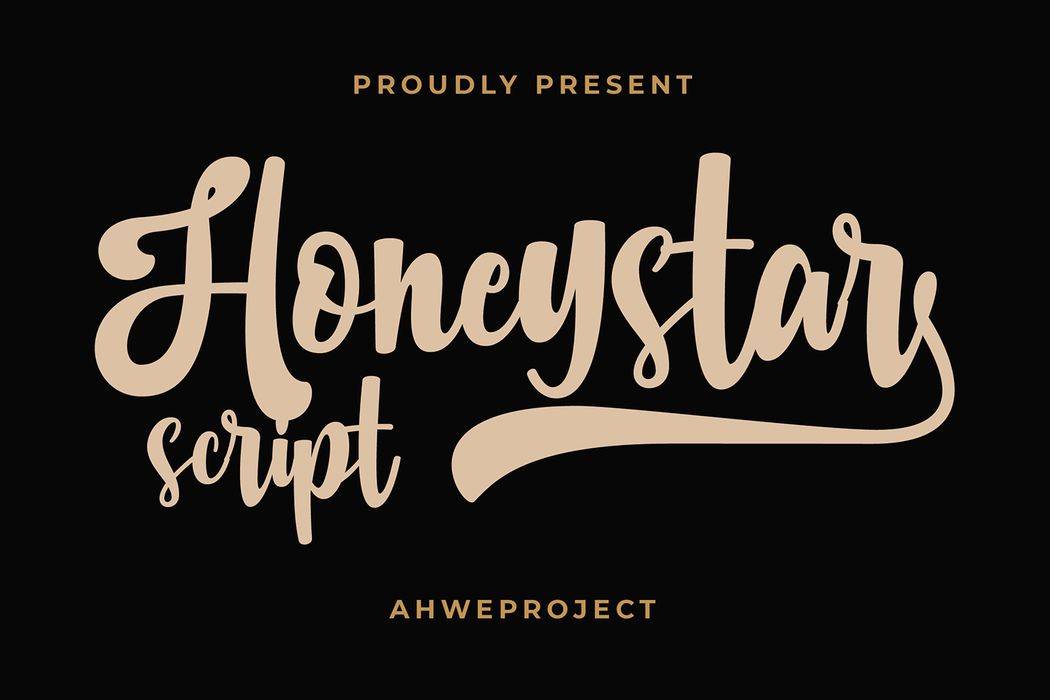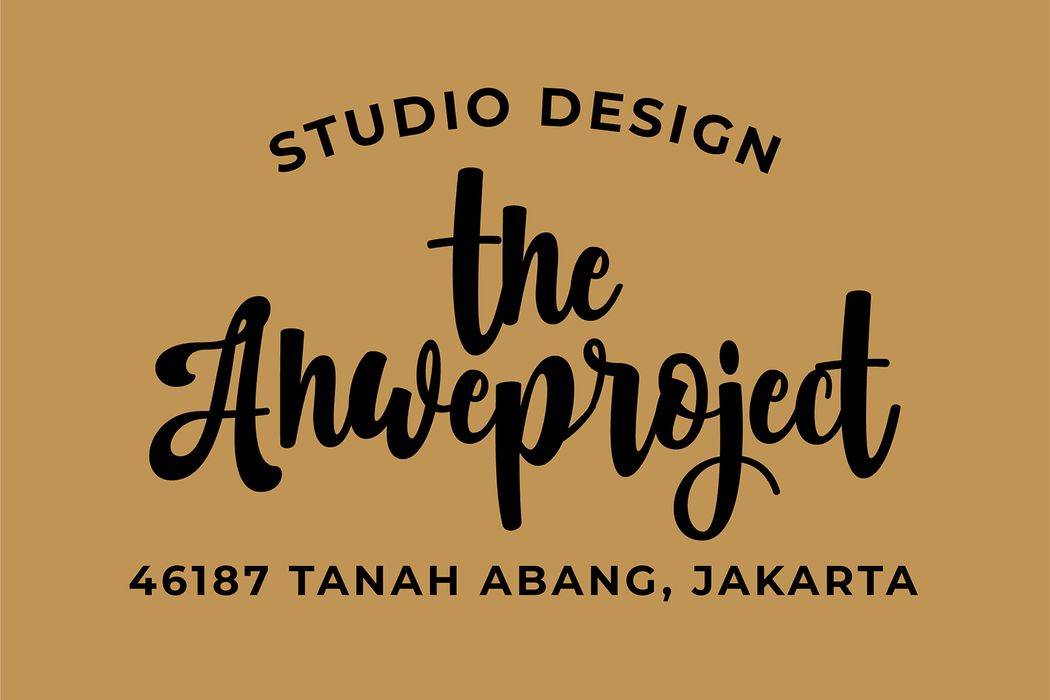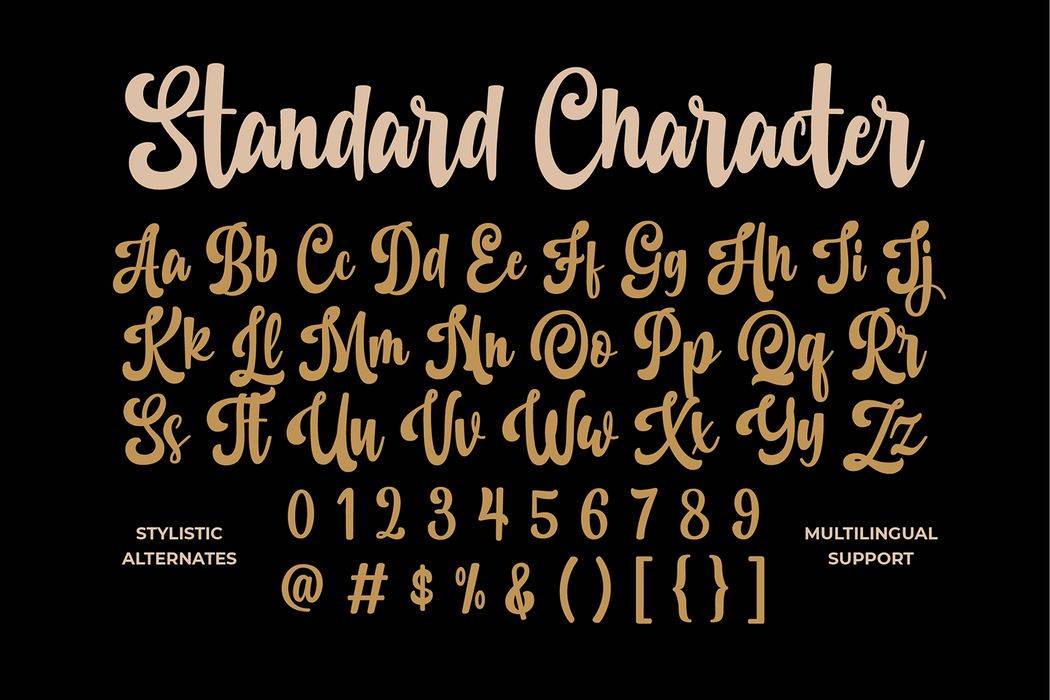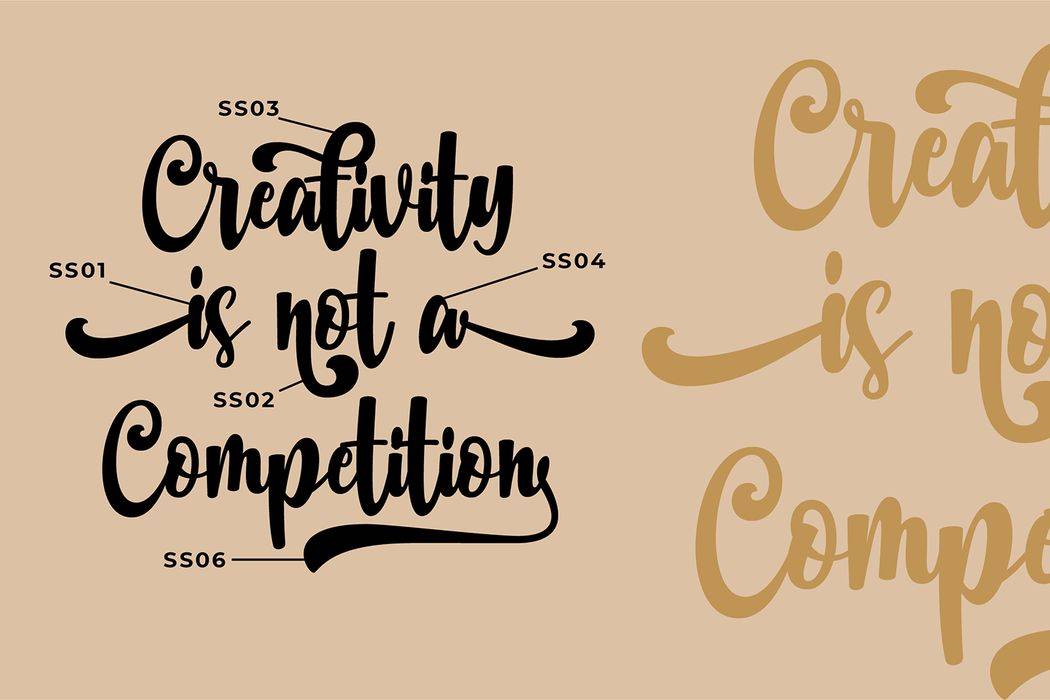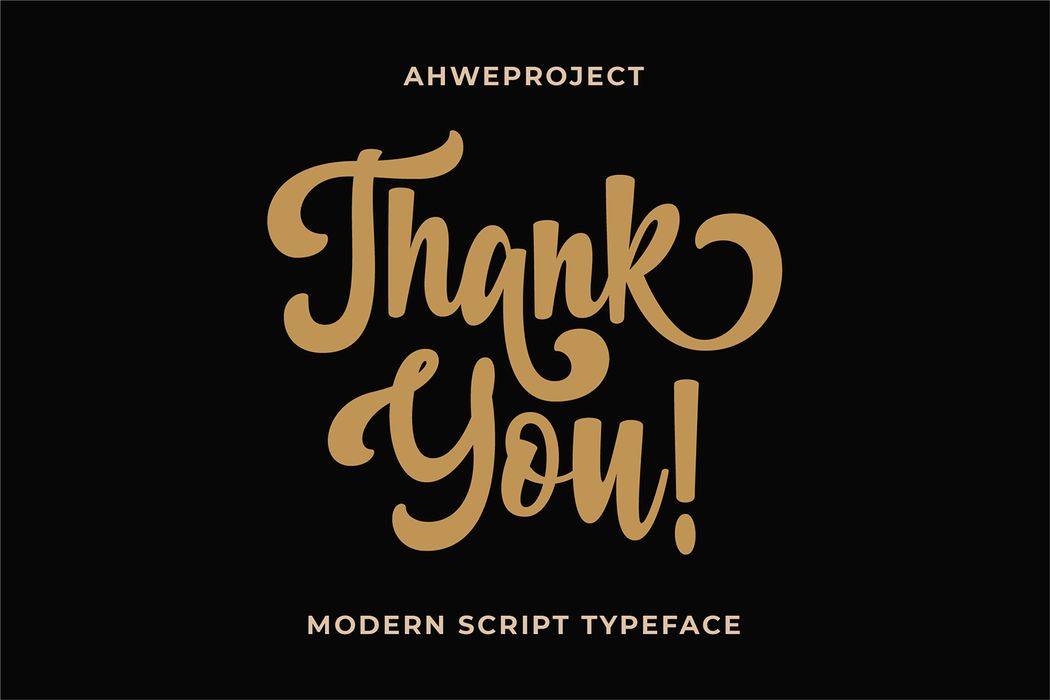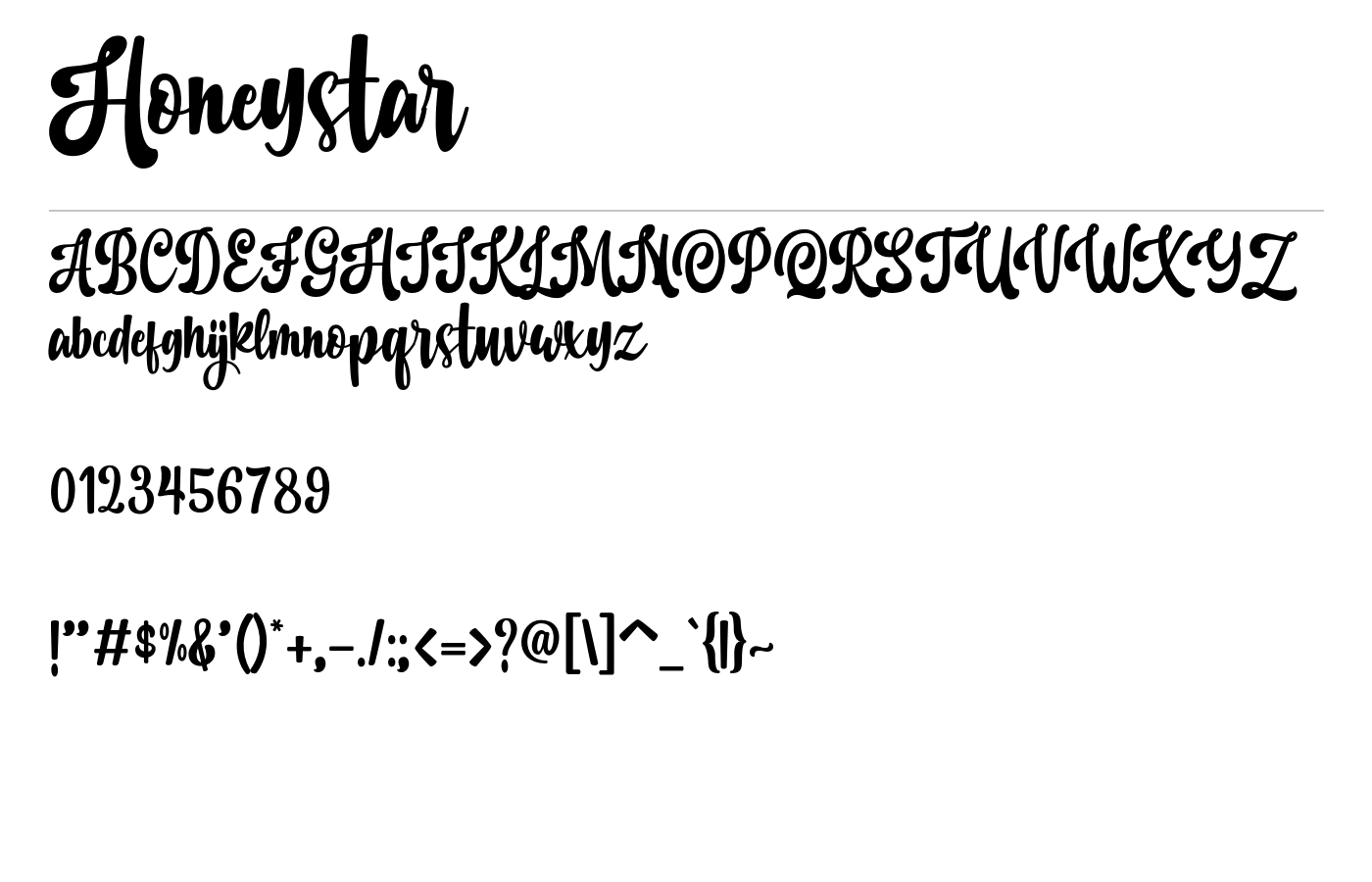
Honeystar is a lively and charming script font with a bold, flowing style that combines playful curves and strong, rounded strokes. It works beautifully for creative and fun projects like branding, packaging, and headlines where a friendly and approachable feel is desired. Its unique letterforms and energetic personality make it perfect for adding warmth and personality to designs.
Honeystar Font
About Honeystar Font
| Font family | Honeystar Font |
| Designer | Dida Ahluddin |